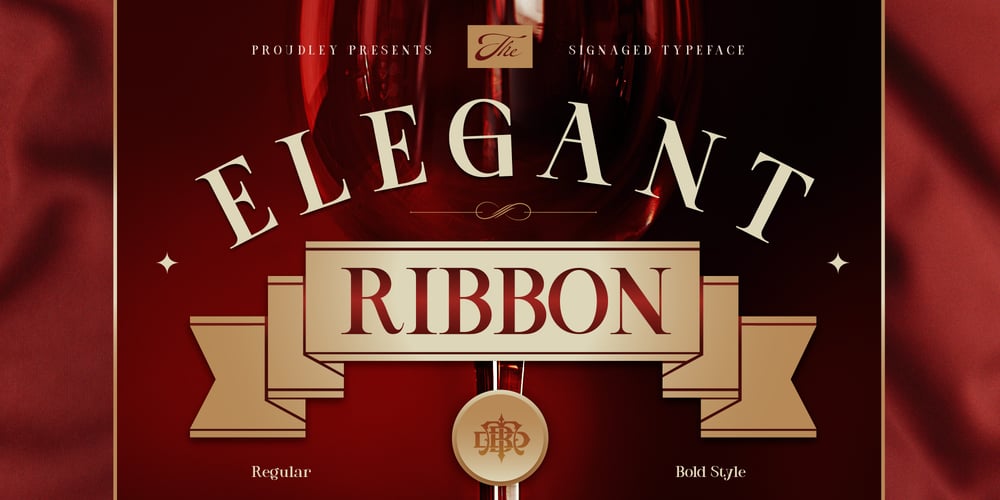
Elegant ribbon Font Family was designed by Eric Kurniawan and published by Burntilldead. Elegant ribbon contains 3 styles and family package options. Proudly present Elegant Ribbon, adding a ribbon of delight to every occasion. This serif typeface designed to be eye catching and impactful. Make it perfect for grabbing attention in large displays. Elegant ribbon range from elegant and sophisticated depending on the message you want to convey. Also this typeface bold and clear, make it stand out with unique design element like ribbon and decorative accents. This typeface suitable for various uses, such as advertisement, event promotion and social media and so on. Features:* A – Z set* Number* Punctuation* Alternate* Multilingual